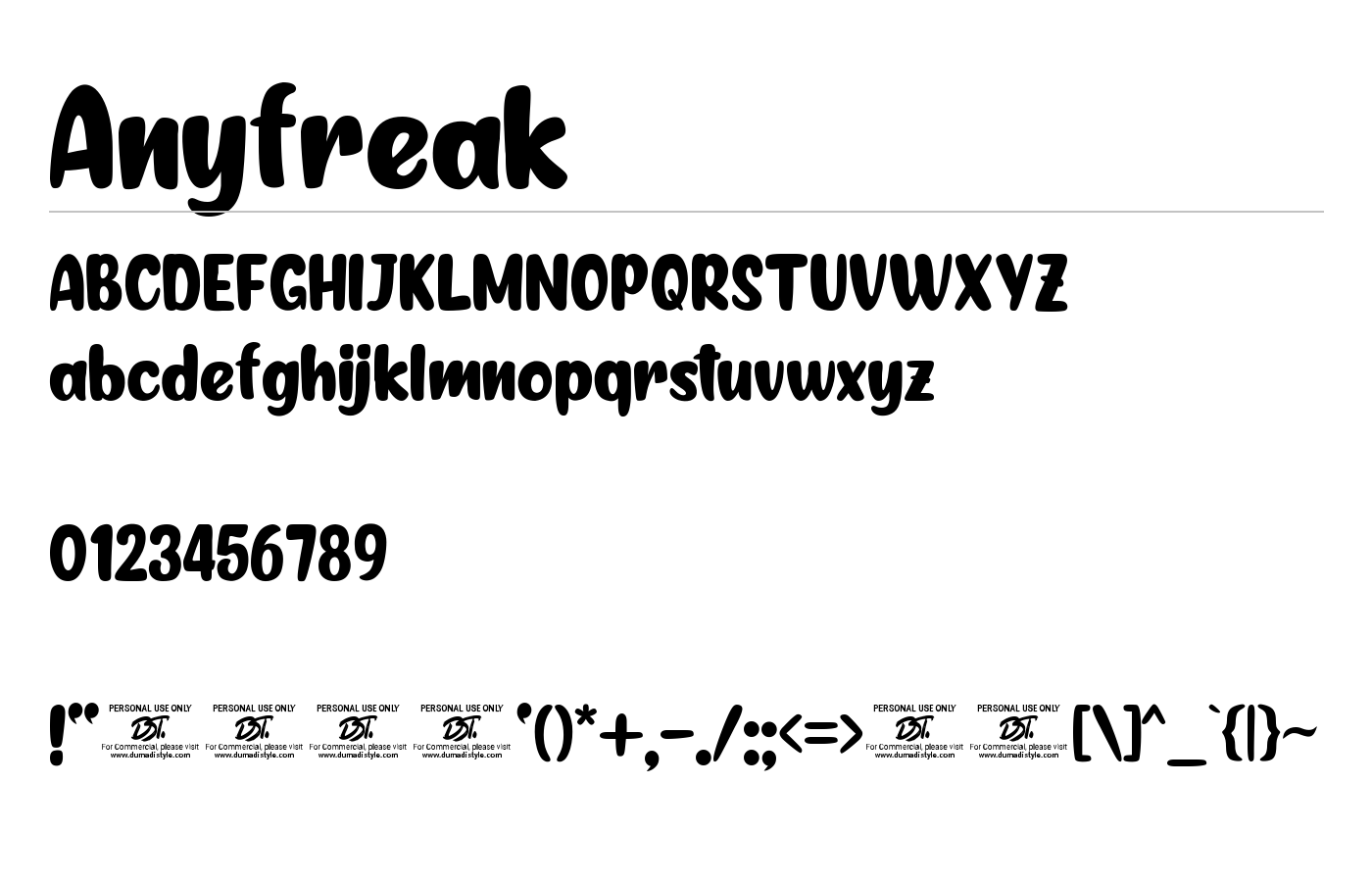
Anyfreak is a bold, playful sans serif font with a rounded, hand-drawn style that gives it a friendly, informal tone. Its thick strokes and lively letterforms make it ideal for fun, approachable designs like kids’ products, casual branding, or eye-catching headlines. This font works best where a quirky, energetic personality is needed to engage and delight viewers.
Anyfreak Font
About Anyfreak Font
| Font family | Anyfreak Font |
| Designer | Toni Dzulham |